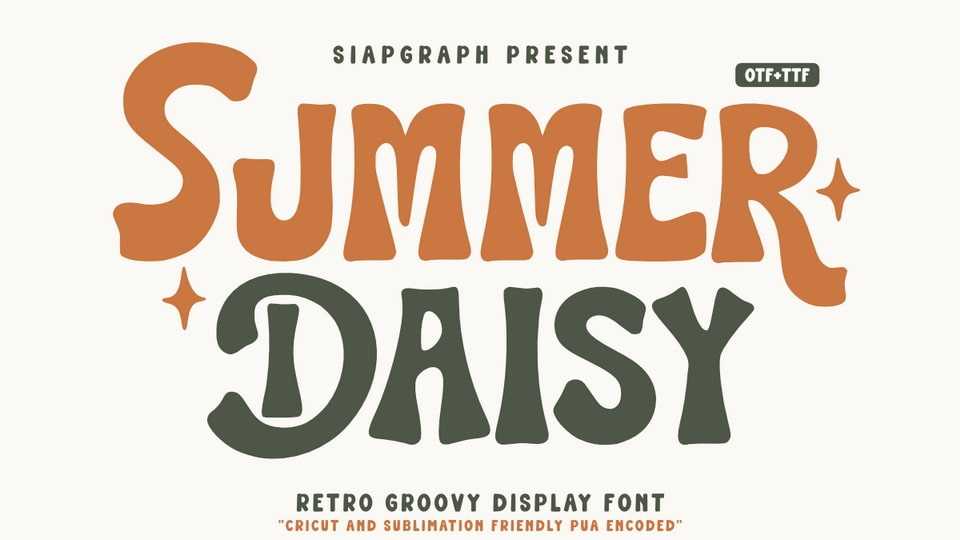
Download Summer Daisy font, a retro groovy display typeface that is playful and full of character. This font is specifically designed for those of you who are involved in the world of crafting, digital design, and sublimation.
Designer: SiapGraph